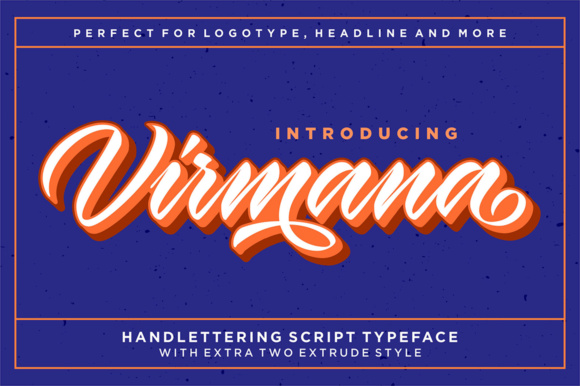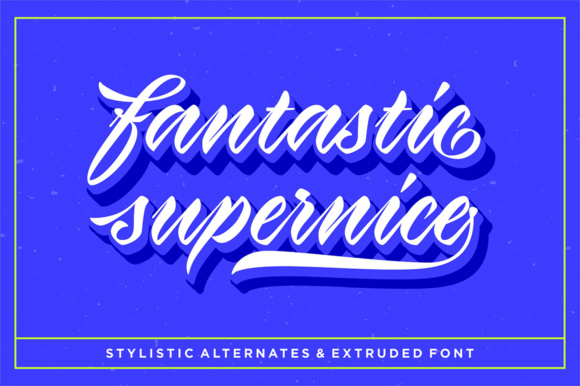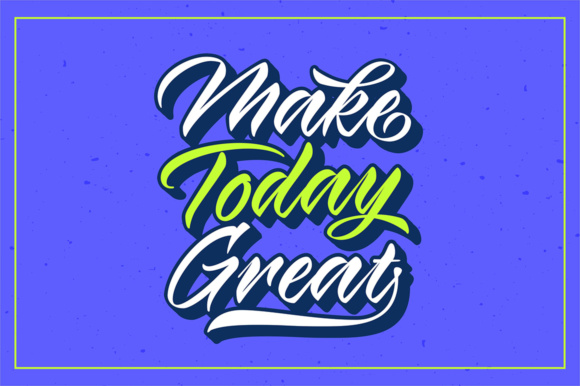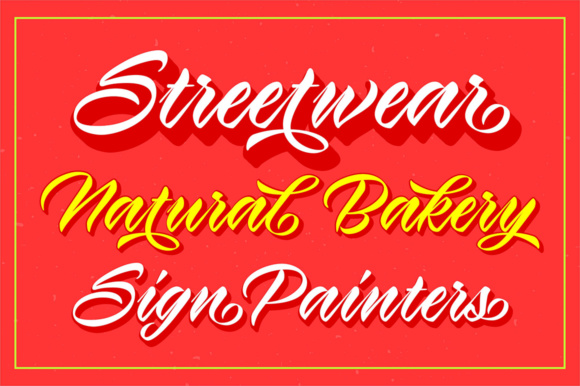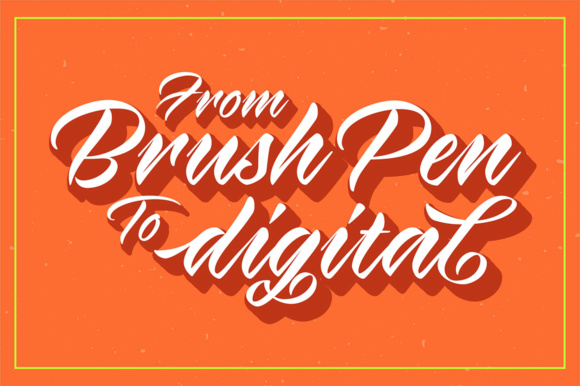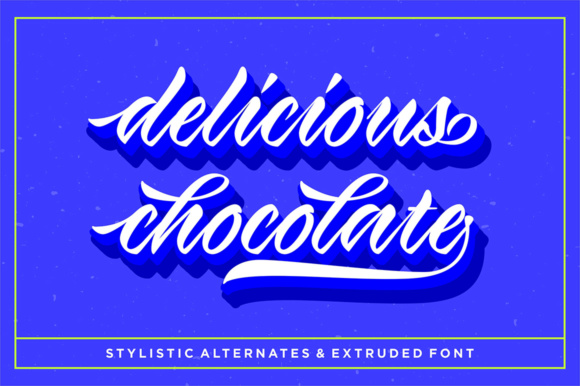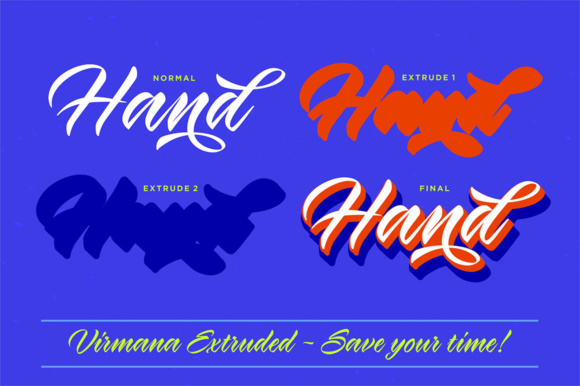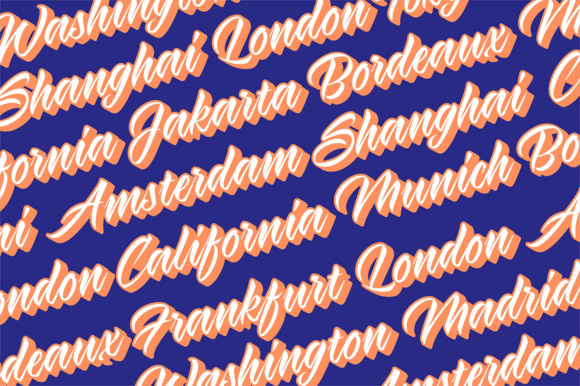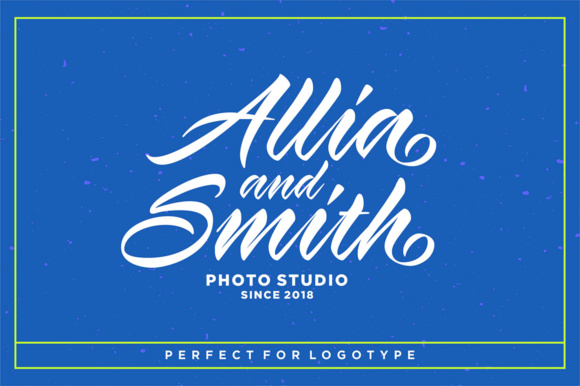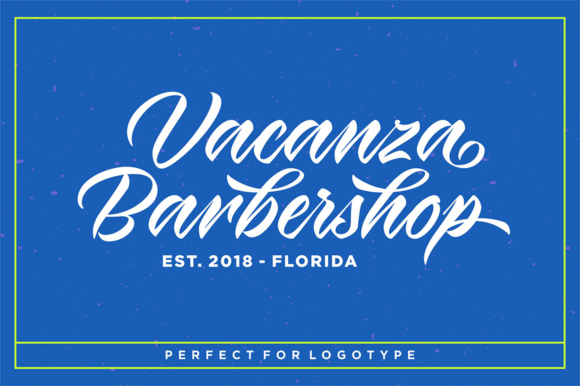
Virmana Font
About Virmana Font
Virmana is a stunning retro calligraphy brush stroke font, perfect for use in logotypes and more! This font has a poppy, bold appeal and comes with three styles so you can layer for an incredibly stylish look to your projects.